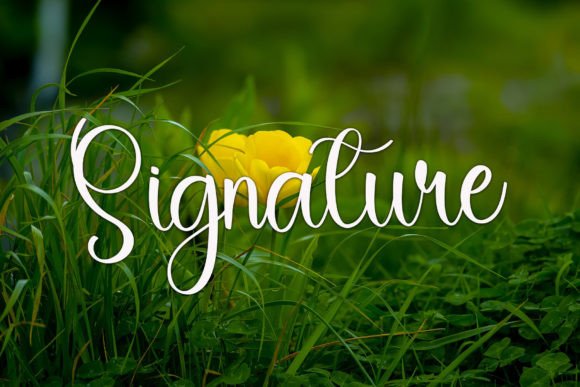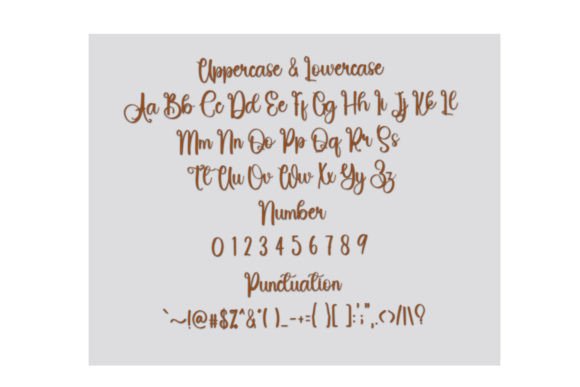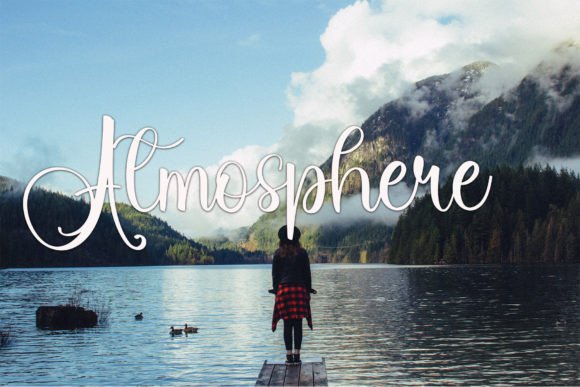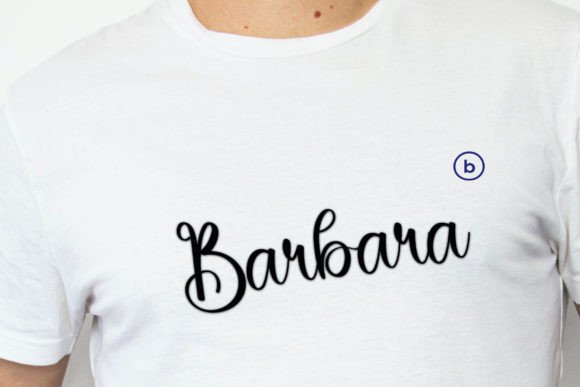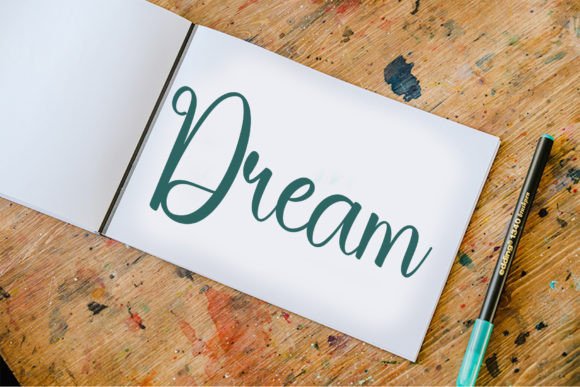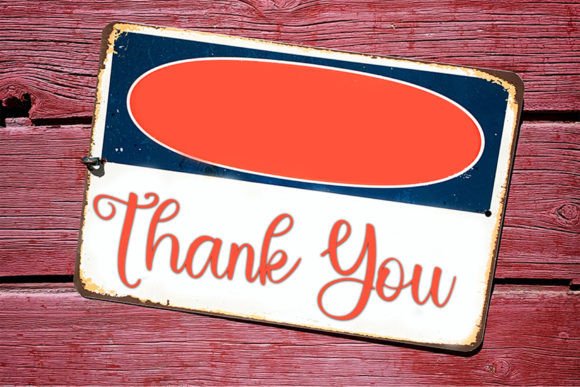
Introducing Delight Font: Elevate Your Designs with Elegance and Sophistication
In the world of typography, few fonts manage to capture the essence of elegance and sophistication as beautifully as Delight Font. This stunning script font is a masterpiece of modern design, offering a perfect blend of style, versatility, and charm. Whether you’re a designer looking to elevate your projects or a crafter seeking the perfect typography for your handmade creations, Delight Font is sure to impress.
The Essence of Delight Font
Delight Font is a stylish and incredibly elegant script font that exudes refinement and luxury. Its flowing lines, intricate details, and beautiful swashes make it an ideal choice for designs that require a touch of sophistication. From wedding invitations and thank you cards to quotes, greeting cards, logos, and business cards, Delight Font can add a level of elegance and whimsy to any project.
Key Features of Delight Font
- Elegant Script Design: Delight Font boasts a beautiful script design with flowing lines and intricate details, making it perfect for designs that require a touch of sophistication.
- Versatile: This font is incredibly versatile and can be used for a wide range of design projects, from wedding invitations and greeting cards to logos and business cards.
- Handwritten Touch: Delight Font has a beautiful handwritten touch that adds a level of personality and whimsy to any design.
- Swashes and Ligatures: The font comes with beautiful swashes and ligatures that can be used to add a touch of elegance and sophistication to your designs.
Delight Font is a perfect choice for designers and crafters who want to add a touch of elegance and sophistication to their projects. Whether you’re creating wedding invitations, greeting cards, or logos, this font is sure to impress. Its versatility and charm make it an ideal choice for a wide range of design projects, from digital designs to print materials.
Tips for Using Delight Font
- Pair with Other Fonts: Delight Font can be paired with other fonts to create a unique and visually appealing design. Try pairing it with a sans-serif font for a modern look or a serif font for a more traditional look.
- Use Swashes and Ligatures: The swashes and ligatures in Delight Font can be used to add a touch of elegance and sophistication to your designs. Use them to create beautiful headings and titles.
- Experiment with Colors: Delight Font looks stunning in a variety of colors. Experiment with different colors to find the one that works best for your design.
In conclusion, Delight Font is a beautiful and elegant script font that can add a touch of sophistication and whimsy to any design project. Its versatility, charm, and elegance make it a perfect choice for designers and crafters who want to create stunning designs. Whether you’re creating wedding invitations, greeting cards, or logos, Delight Font is sure to impress.